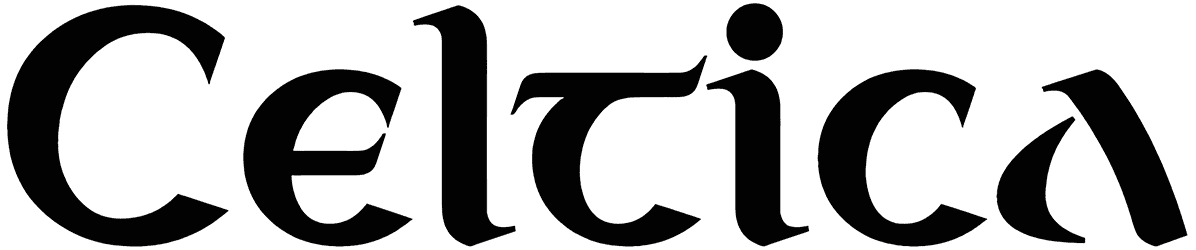
Celtica Font
You have a good chance to create a unique and ravishing design with this Celtic Irish font and reveal your creativity. The Celtica, with its distinct and decorative visual support, features all characters in four versions. This cinematic font is a perfect selection for many projects, such as a historical movie poster or anything else.